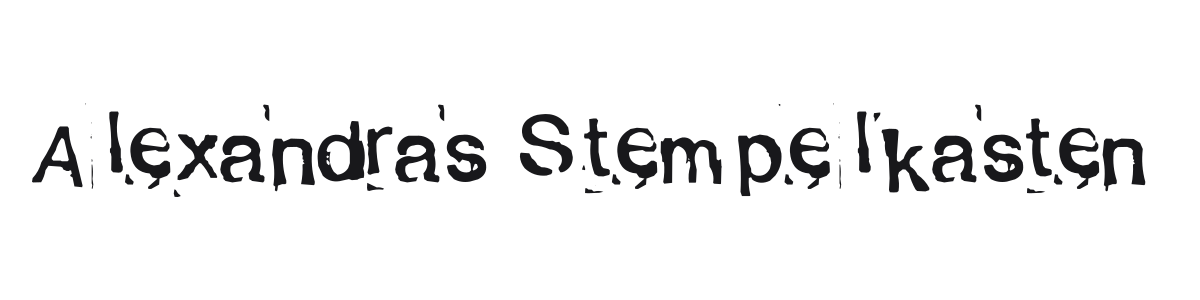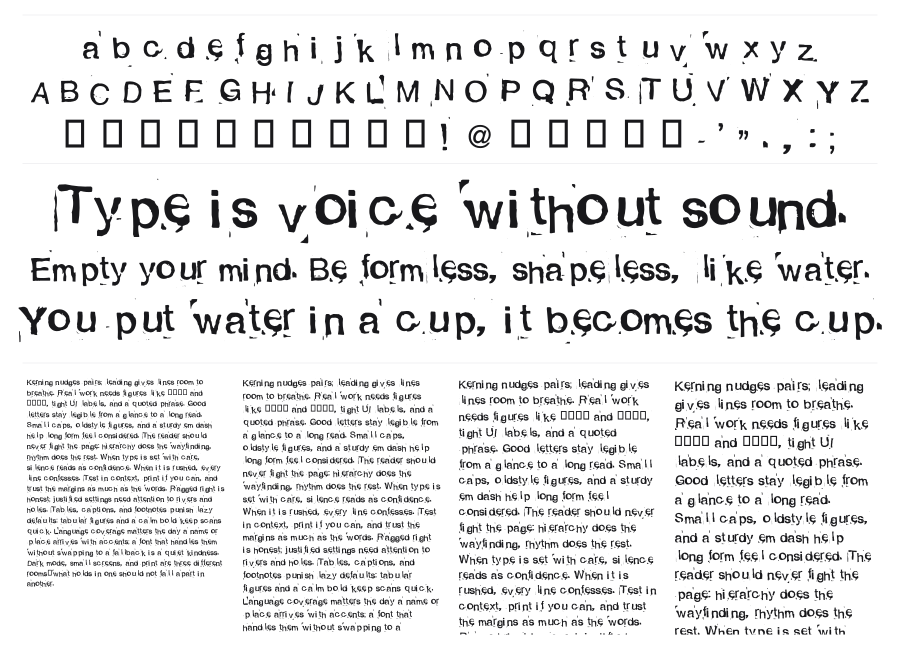
Alexandras Stempelkasten
Alexandras Stempelkasten is a distressed display font that mimics the look of old rubber stamps pressed unevenly onto paper. Characters show ink dropout, ragged edges, and slight positional wobble that make each word feel tactile and one-of-a-kind. It brings a handmade, craft-workshop energy to headlines, labels, and any project that benefits from something rough and unpredictable.